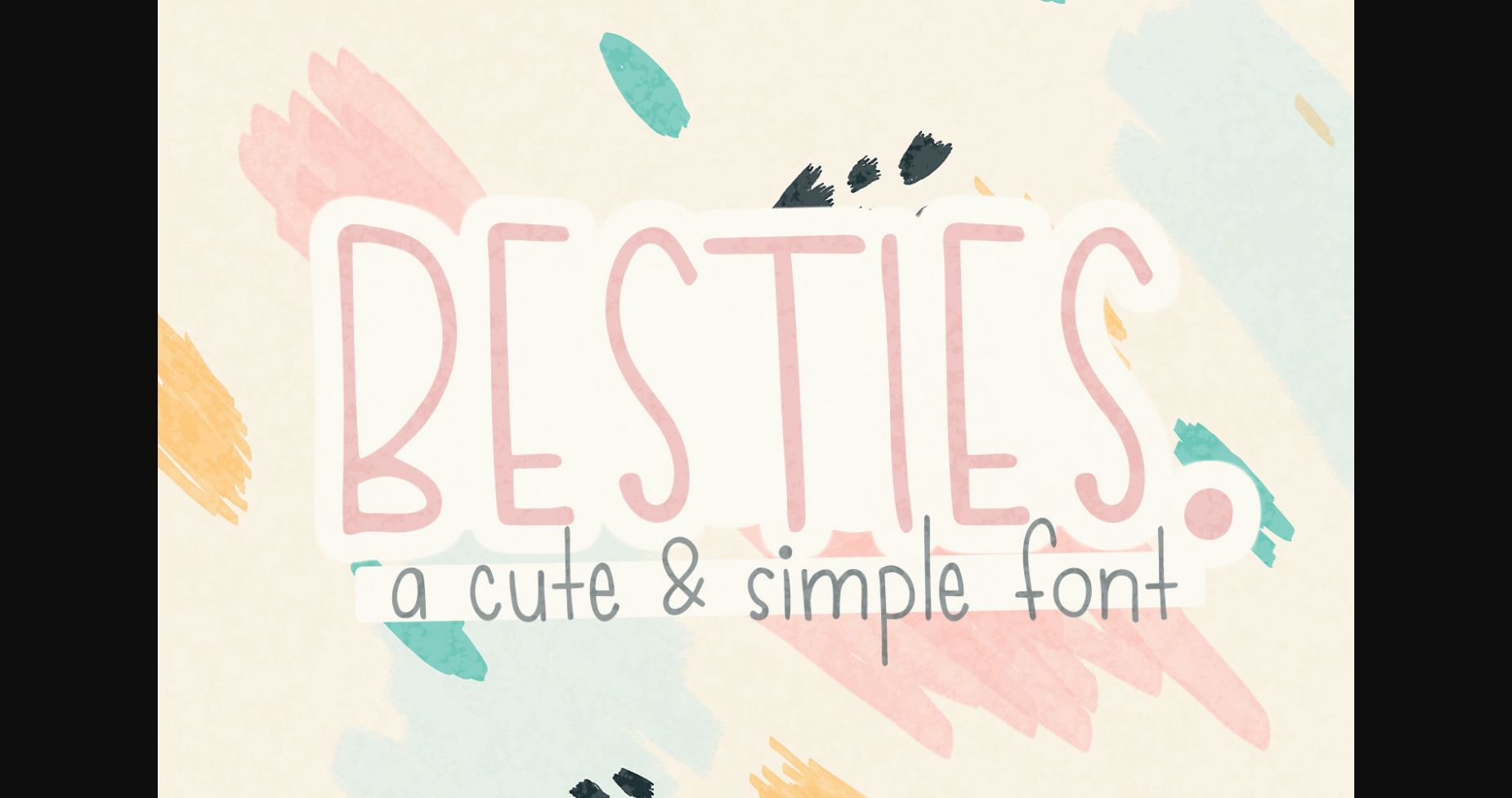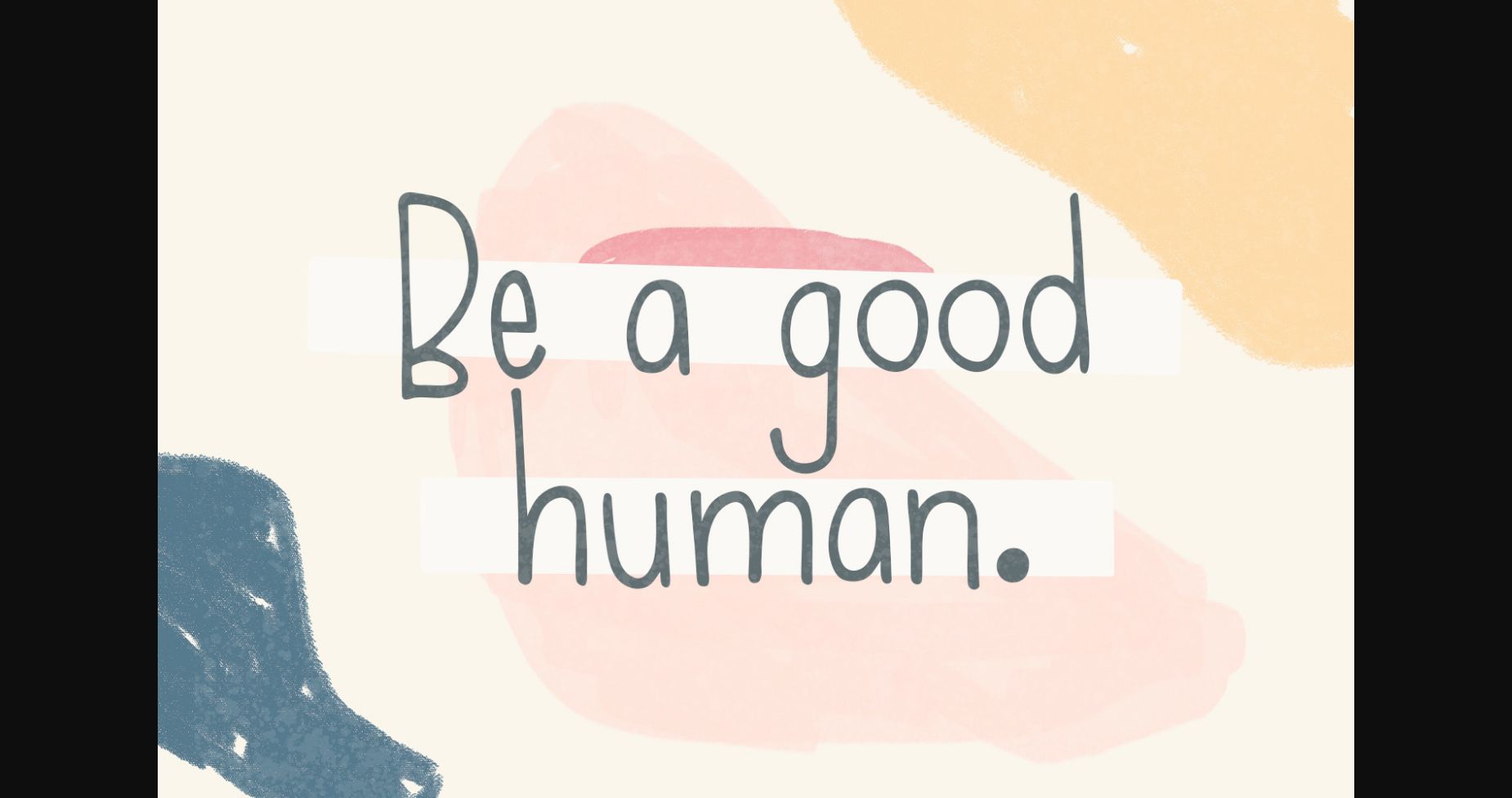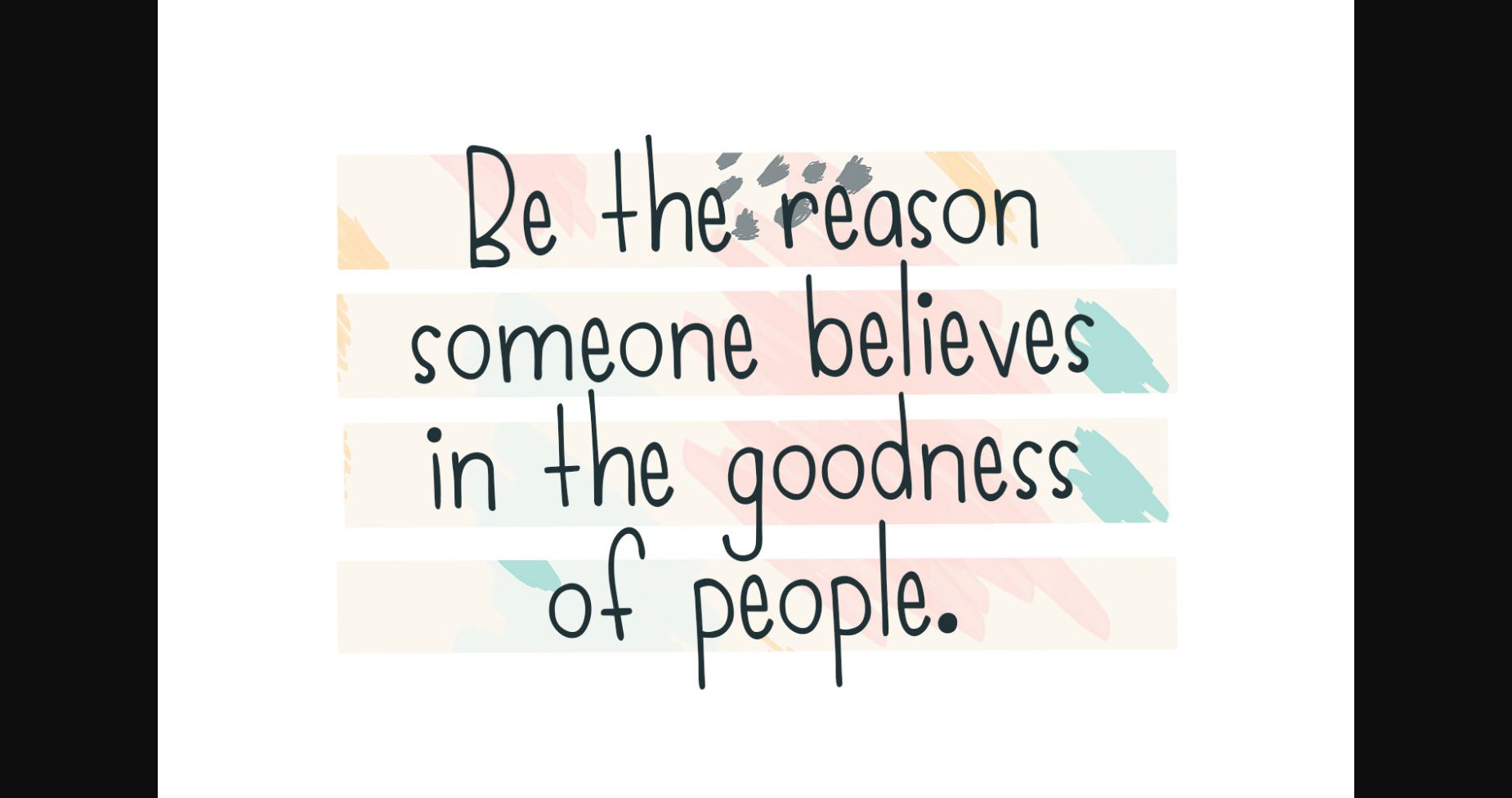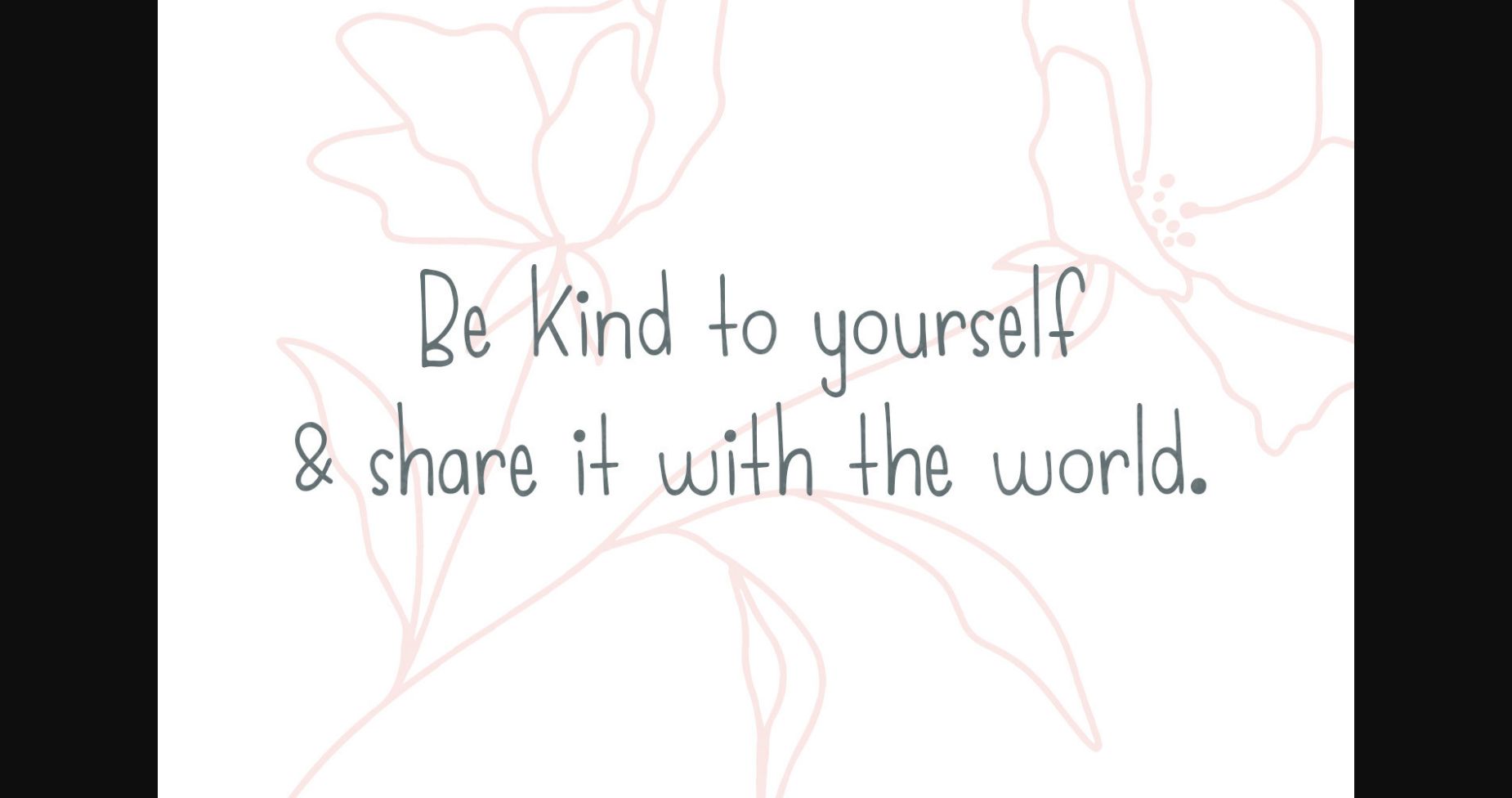
About Besties Font
Besties is a minimal and neat sans serif font. It can easily be matched to an incredibly large set of projects, so add it to your creative ideas and notice how it makes them stand out!